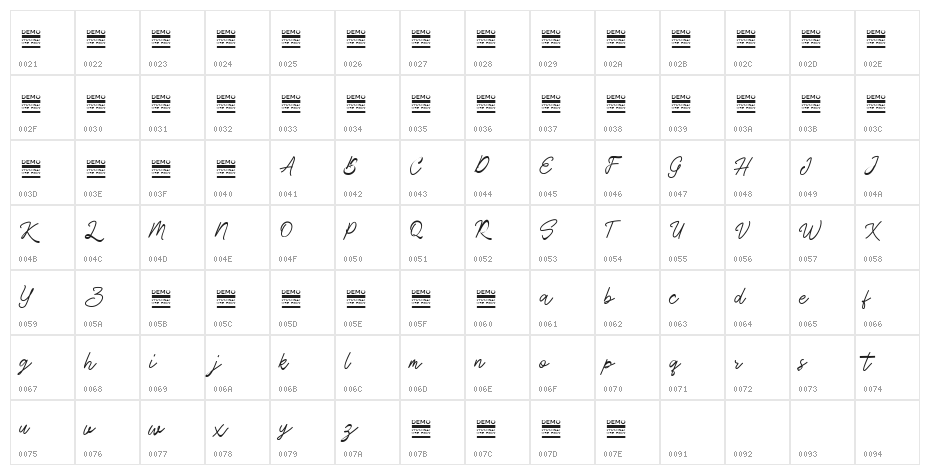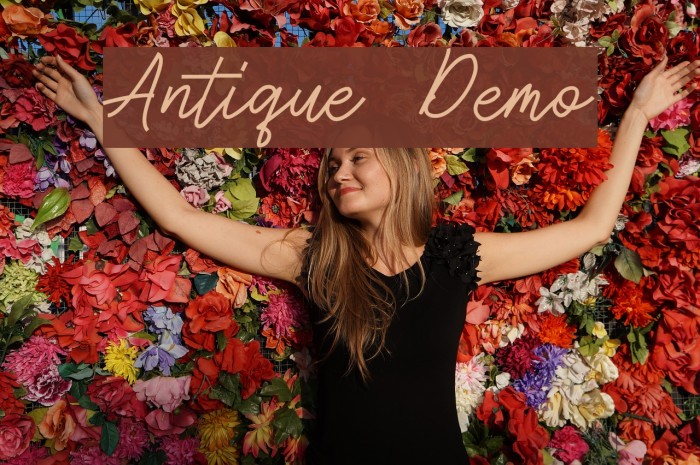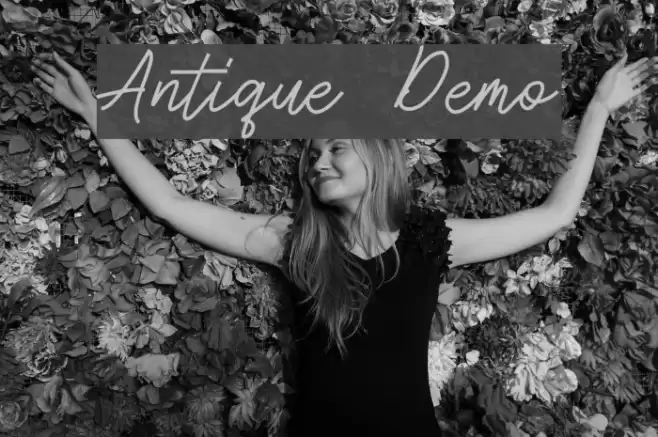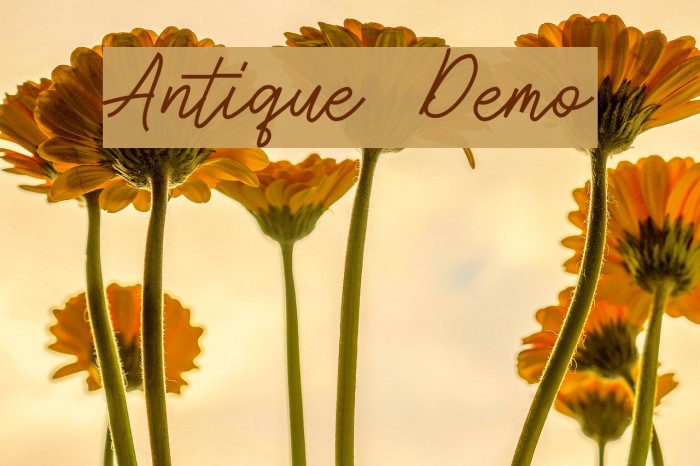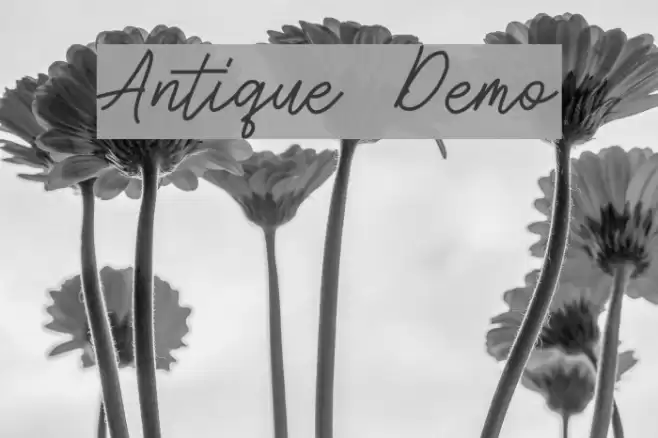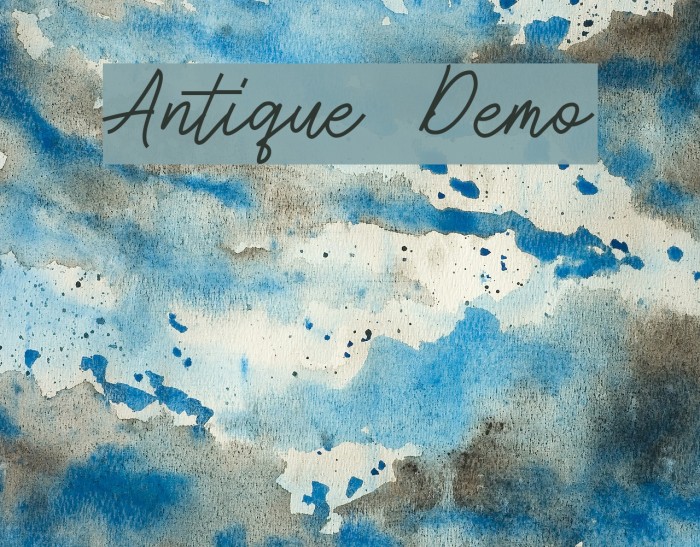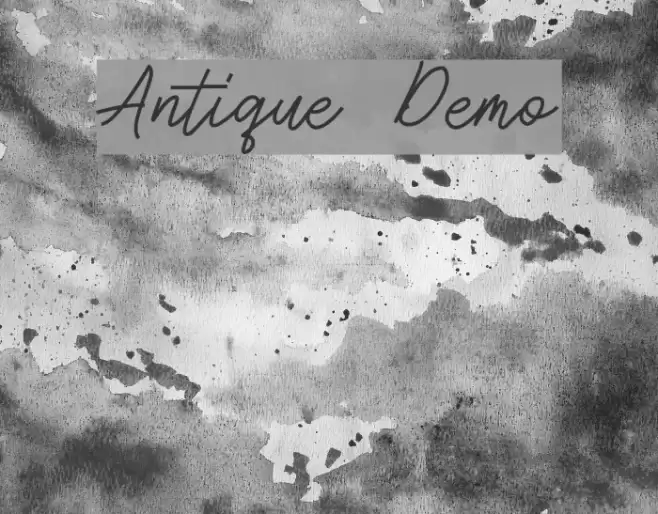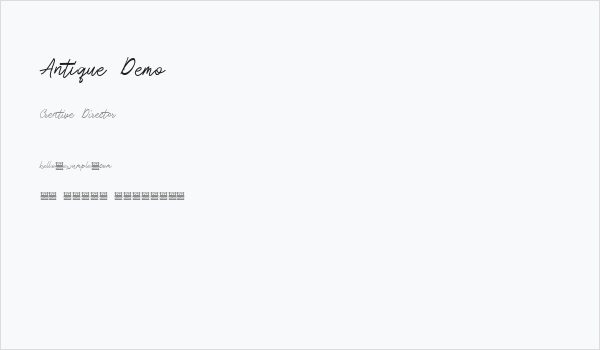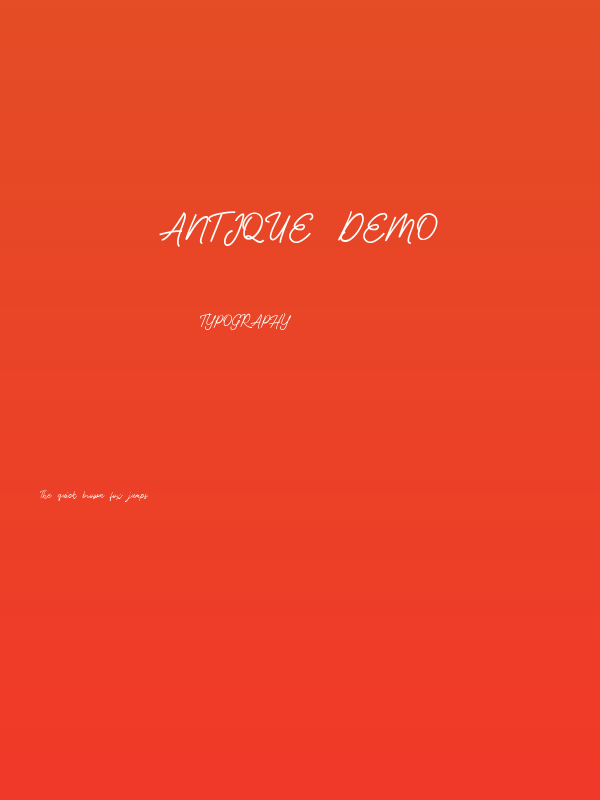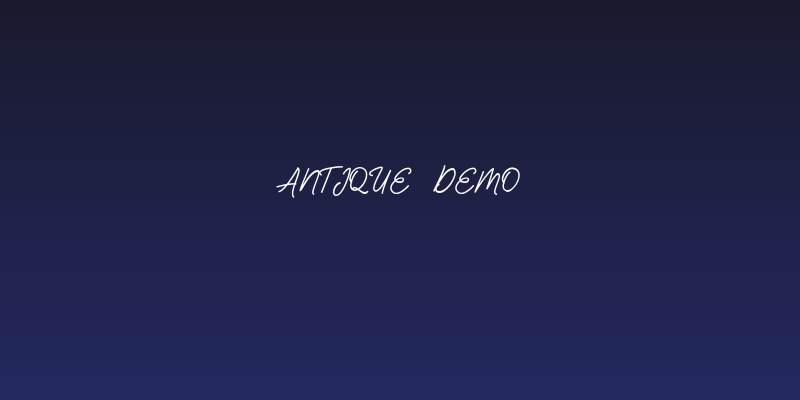
Antique Demo Font
Antique Demo Description
This font features an elegant and flowing script style, characterized by its smooth, cursive strokes and graceful curves. The uppercase letters are bold and prominent, with a slight slant that adds a dynamic feel. Lowercase letters maintain a consistent flow, enhancing readability while retaining a sophisticated appearance. The font's overall design exudes a sense of elegance and formality, making it suitable for various decorative purposes. Its fluidity and style make it ideal for projects that require a touch of class and refinement.
| Proposed Projects | Ideal for wedding invitations, greeting cards, branding, and elegant logos. |